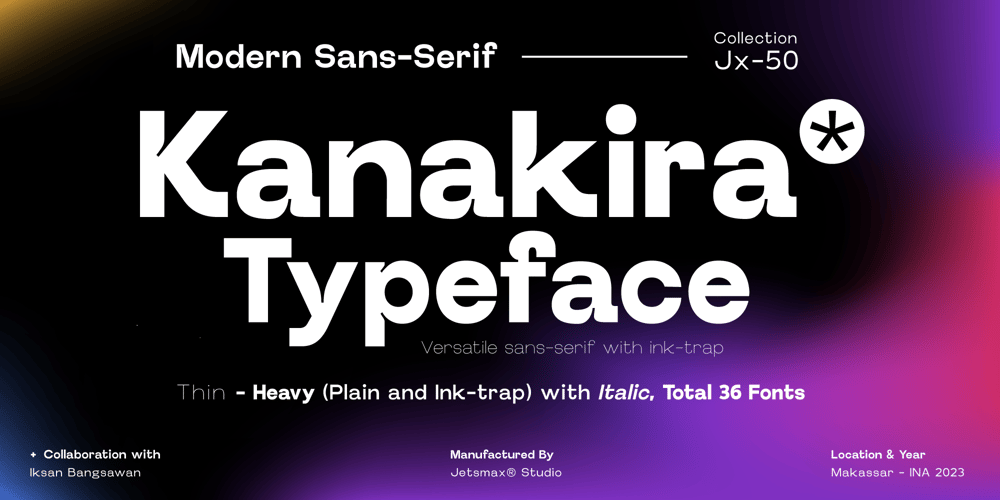
Kanakira Font Family was designed by Khairil Anwar and published by Jetsmax Studio. Kanakira contains 36 styles and family package options. Kanakira is a modern sans typeface that is heavy on a geometric take of the neo-grotesque model, with a special ink-trap feature. Available in 9 weights from thin to heavy, Kanakira is ready to be your “go-to” font for any kind of project.